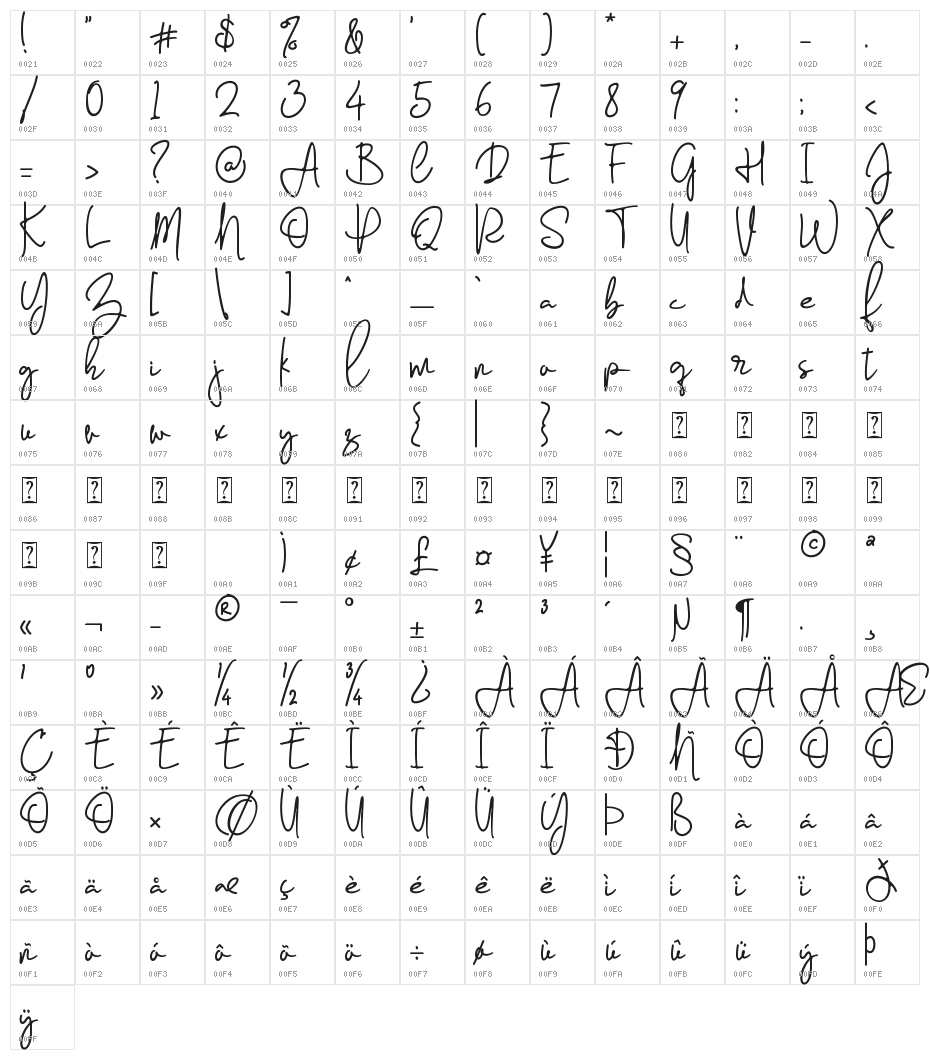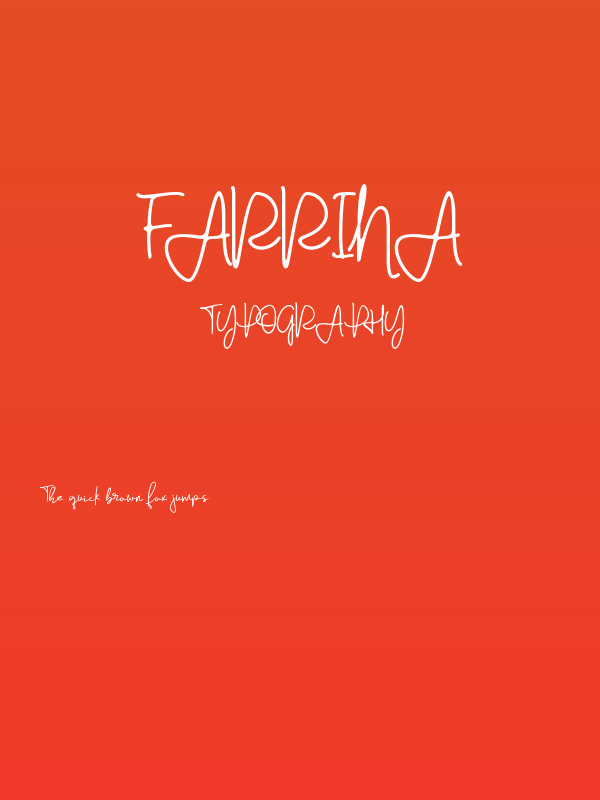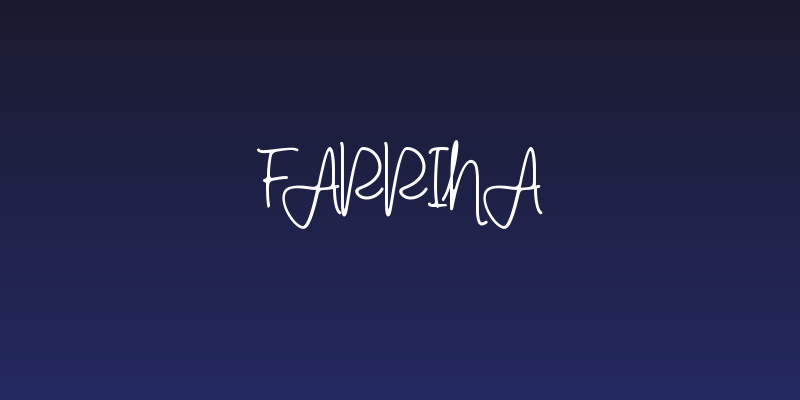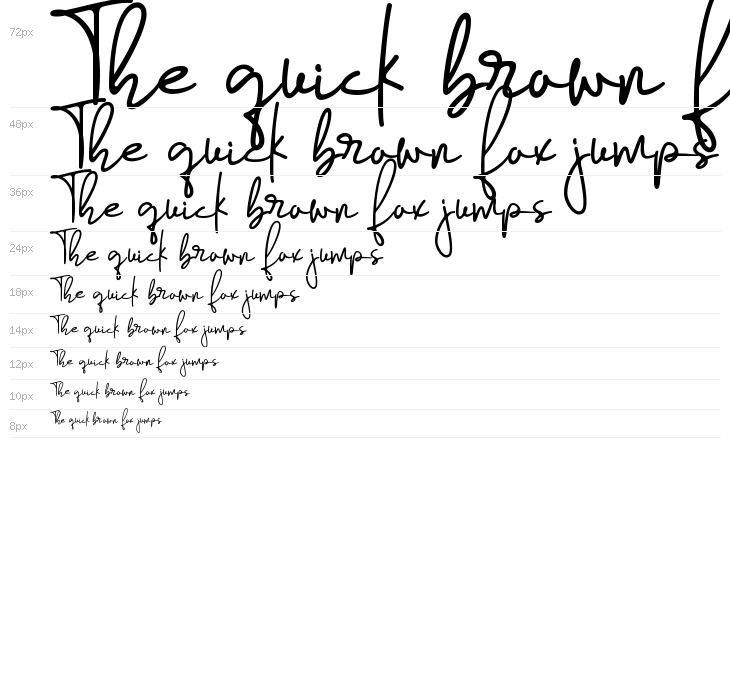
Farrina Font
Farrina Description
This font exhibits a lively and expressive handwritten style, characterized by its fluid and dynamic strokes. The letters are connected in a cursive manner, giving it a natural and personal touch. The uppercase letters are bold and prominent, while the lowercase letters maintain a consistent flow, enhancing readability. The numerals and special characters are crafted with the same energetic flair, ensuring a cohesive look across all elements. This font's playful yet sophisticated appearance makes it suitable for a variety of creative applications.
| Use Case | Logos, Invitations, Artistic projects |
| Proposed Projects | Ideal for greeting cards, personal branding, invitations, and artistic projects. |